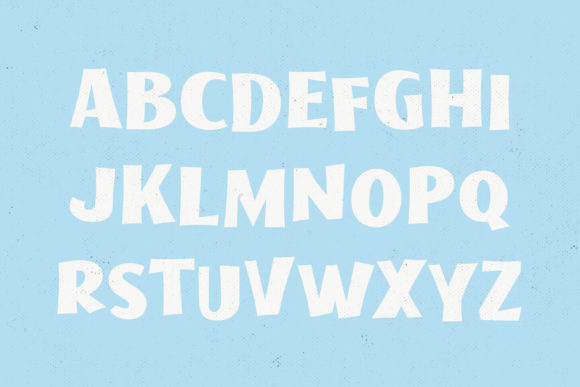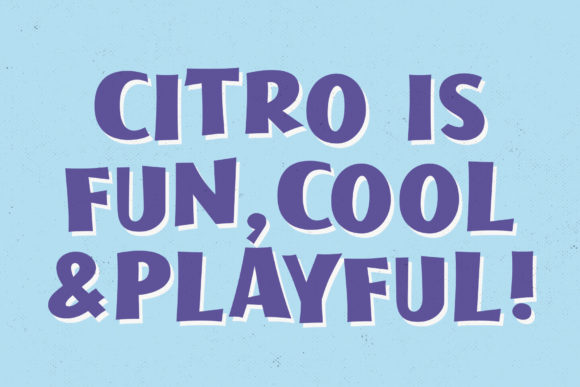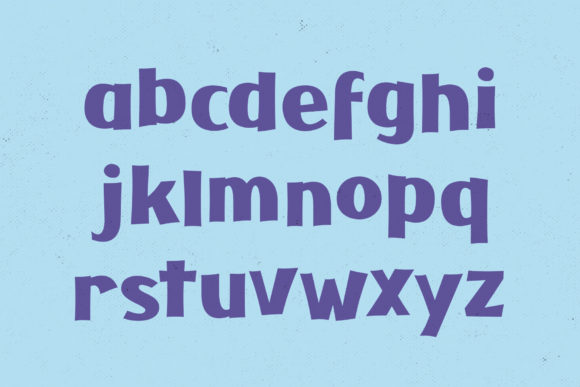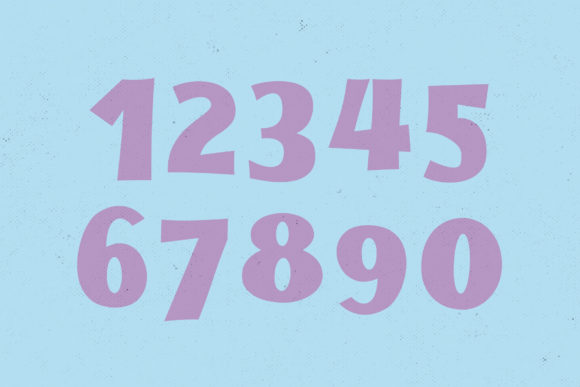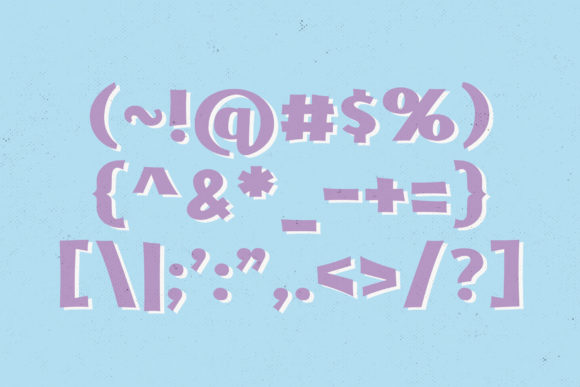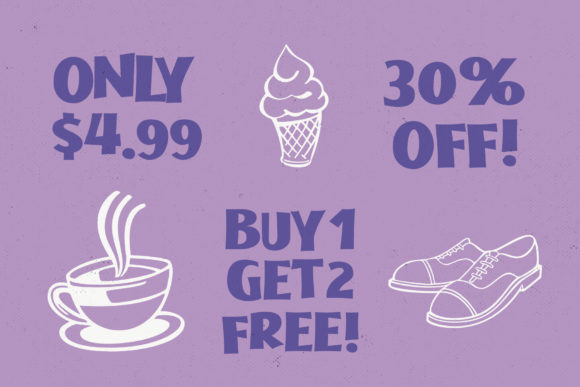
Citro Font: The Ultimate Display Font for Joyful Designs
Are you looking for a font that can add a touch of joy and playfulness to your designs? Look no further than Citro Font, a cool, thick lettered, and bold display font that’s perfect for a variety of creative projects. In this article, we’ll explore the features and benefits of Citro Font, and why it’s a great choice for designers and crafters.
What is Citro Font?
Citro Font is a bold and eye-catching display font that’s designed to make a statement. Its thick letters and cool style make it perfect for designs that require a touch of fun and playfulness. Whether you’re creating cartoon-related designs, children’s games, quotes, titles, brand names, book covers, posters, or any other creation that needs a boost of energy, Citro Font is an excellent choice.
Key Features of Citro Font
So, what makes Citro Font so special? Here are some of its key features:
- Bold and Thick Letters: Citro Font features bold and thick letters that are sure to grab attention.
- Cool and Playful Style: The font has a cool and playful style that’s perfect for designs that require a touch of joy.
- Versatile: Citro Font is versatile and can be used for a variety of creative projects, from cartoon-related designs to book covers and posters.
- Easy to Read: Despite its bold style, Citro Font is easy to read, making it perfect for titles, headings, and quotes.
Use Cases for Citro Font
Citro Font is a versatile font that can be used for a wide range of creative projects. Here are some use cases where Citro Font shines:
- Cartoon-Related Designs: Citro Font is perfect for cartoon-related designs, such as animated movies, TV shows, and comics.
- Children’s Games: The font’s playful style makes it an excellent choice for children’s games, puzzles, and activity books.
- Quotes and Titles: Citro Font is great for quotes, titles, and headings that require a touch of boldness and playfulness.
- Book Covers: The font’s bold style makes it perfect for book covers, especially for children’s books, comics, and graphic novels.
- Posters and Flyers: Citro Font is also great for posters and flyers that require a bold and eye-catching style.
Why Choose Citro Font?
So, why should you choose Citro Font for your next design project? Here are some reasons:
- Unique Style: Citro Font has a unique style that’s sure to make your designs stand out.
- High-Quality: Citro Font is a high-quality font that’s designed to deliver excellent results.
- Versatile: The font is versatile and can be used for a wide range of creative projects.
In conclusion, Citro Font is an excellent choice for designers and crafters who want to add a touch of joy and playfulness to their designs. Its bold and thick letters, cool style, and versatility make it perfect for a wide range of creative projects. Whether you’re creating cartoon-related designs, children’s games, quotes, titles, book covers, posters, or any other creation that requires a boost of energy, Citro Font is a great choice. So, why not give Citro Font a try and see how it can elevate your designs?
Here are some tips and tricks for using Citro Font:
- Use it Boldly: Citro Font is designed to be used boldly, so don’t be afraid to experiment with different sizes and colors.
- Pair it with Other Fonts: Citro Font can be paired with other fonts to create a unique and interesting design.
- Experiment with Colors: The font’s bold style makes it perfect for experimenting with different colors and gradients.
With Citro Font, the possibilities are endless. So, why not give it a try and see how it can elevate your designs?